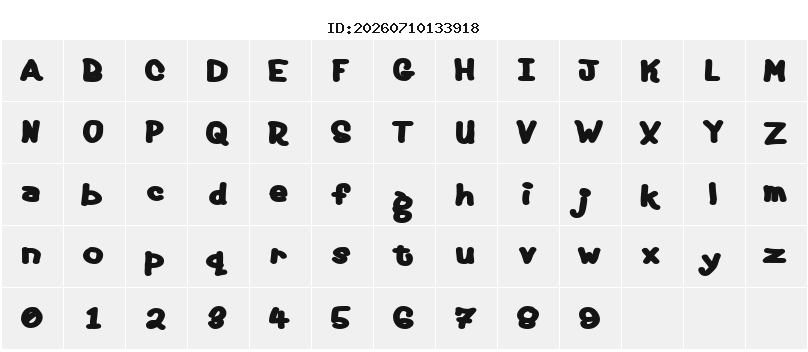
• Font Name: Fat
• Full Font Name: Fat
About Fat.ttf
Fat.ttf is a modern, elegant sans-serif font designed for ultimate readability and visual harmony. Perfect for branding, headlines, web design, and print materials.